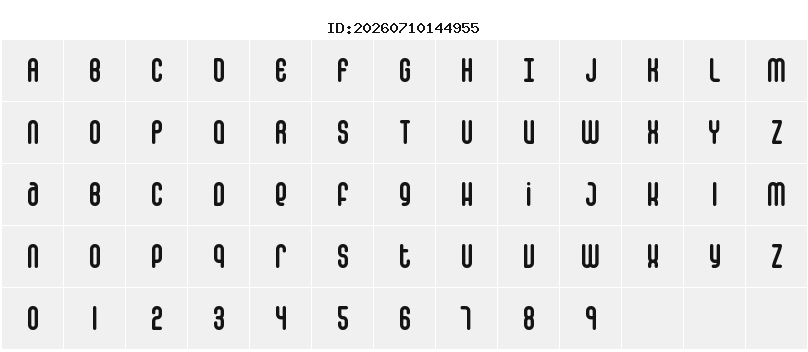
• Font Name: False Positive Round BRK
• Full Font Name: False Positive Round BRK
About False Positive Round BRK.ttf
False Positive Round BRK.ttf is a modern, elegant sans-serif font designed for ultimate readability and visual harmony. Perfect for branding, headlines, web design, and print materials.